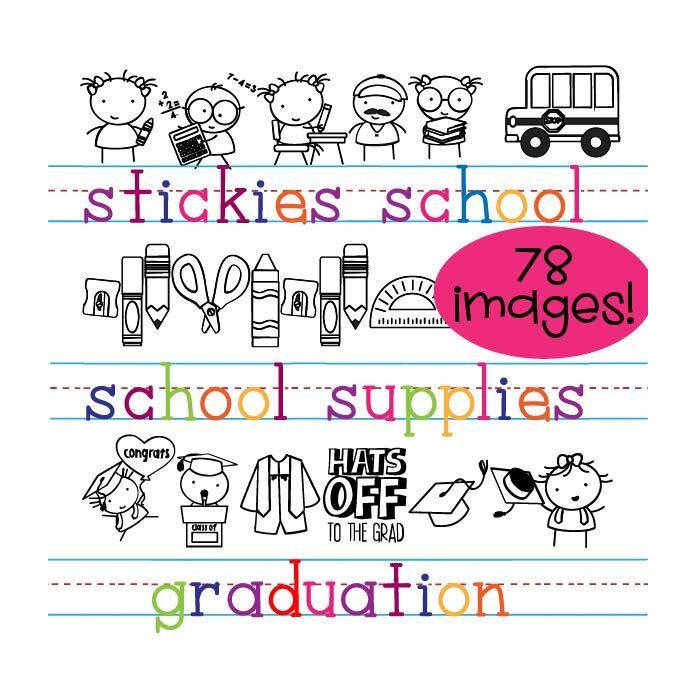
With three full color dingbats you get 78 total images for one low price! With 26 Stickies School imagery, 26 Stickies School Supplies imagery and 26 Stickies Graduation imagery. All dingbat fonts are perfect for School, teachers, classrooms, education cards, crafts, gifts, decor, classrooms, planner stickers, scrap book pages and more!